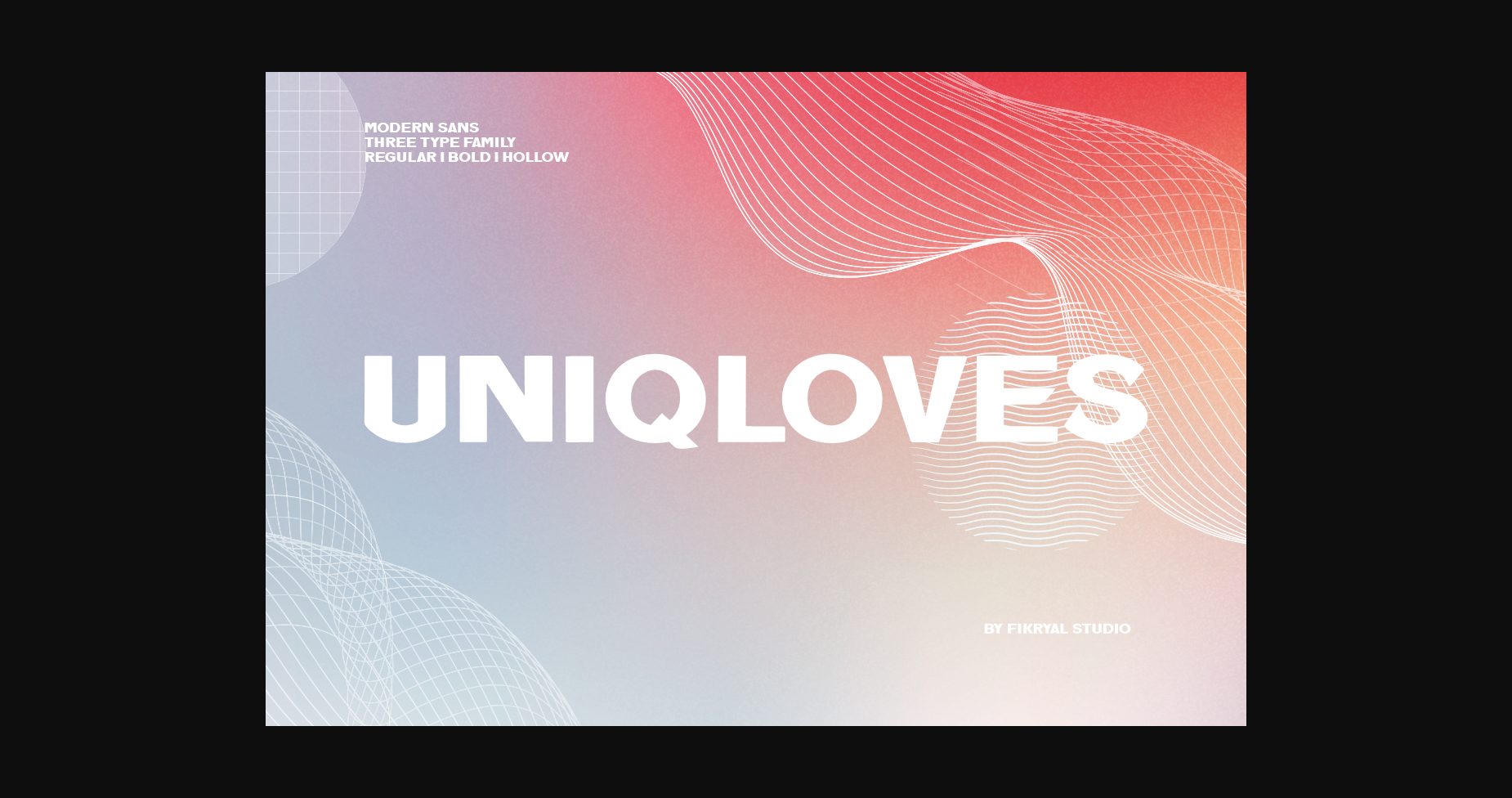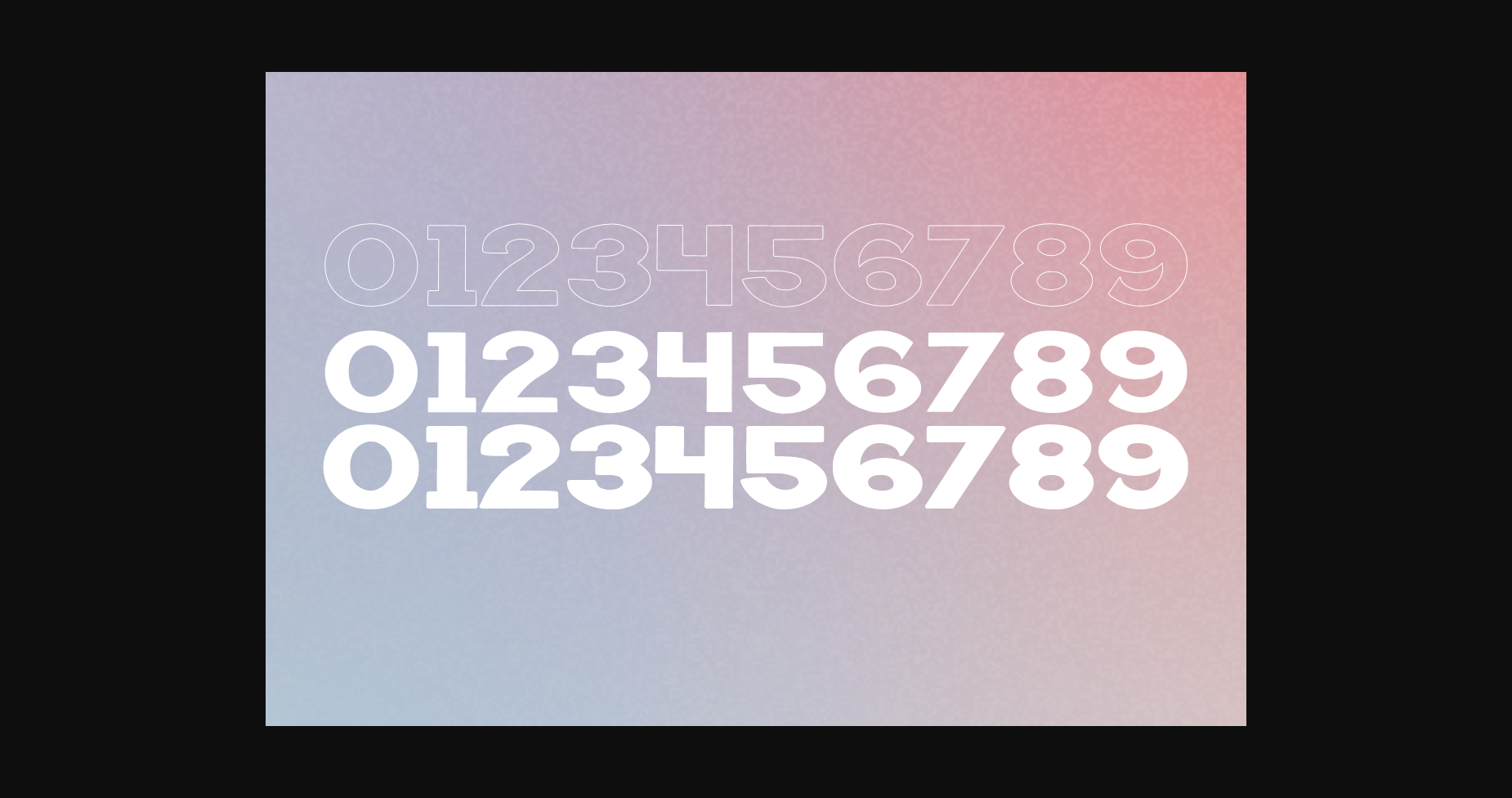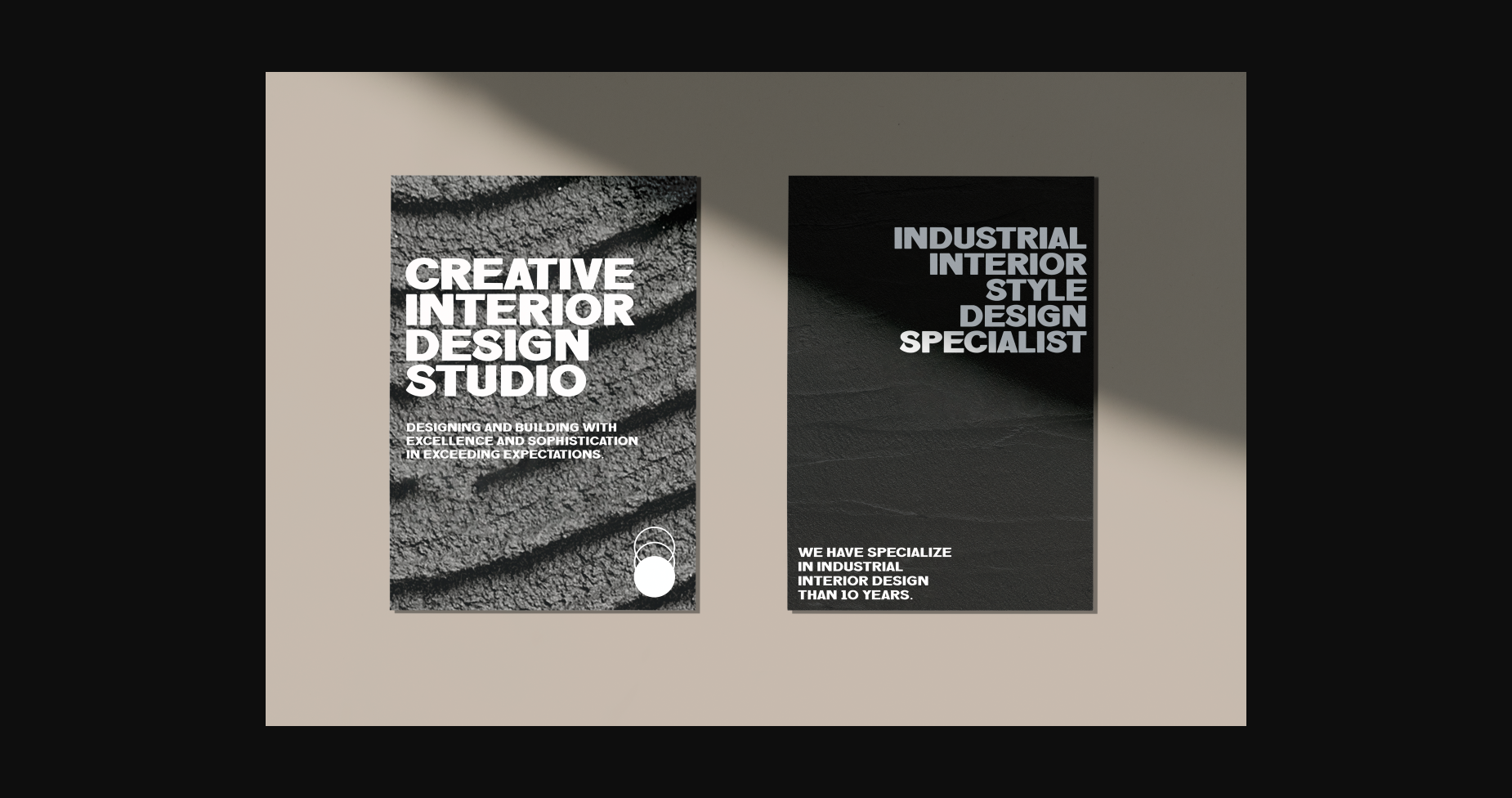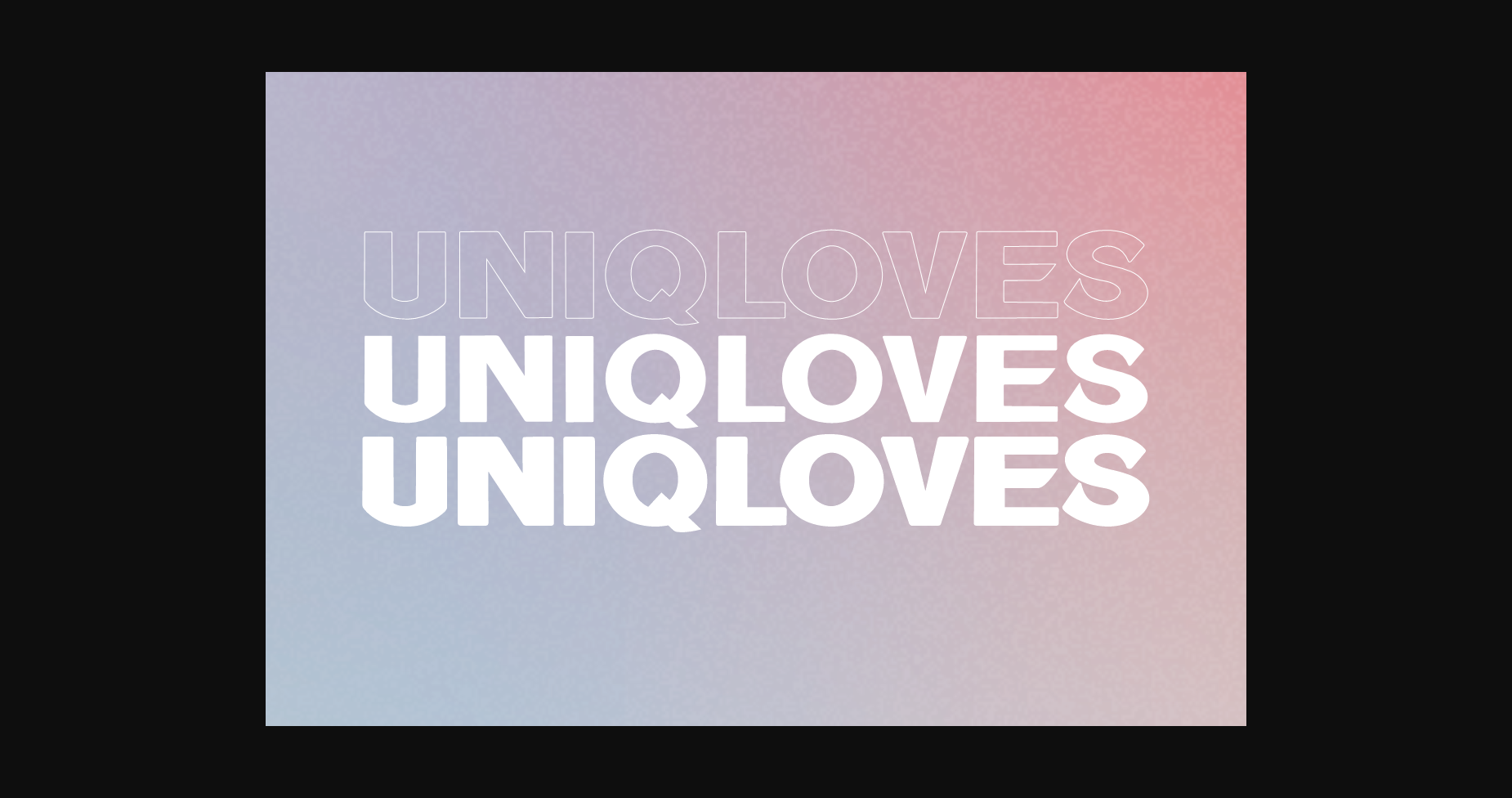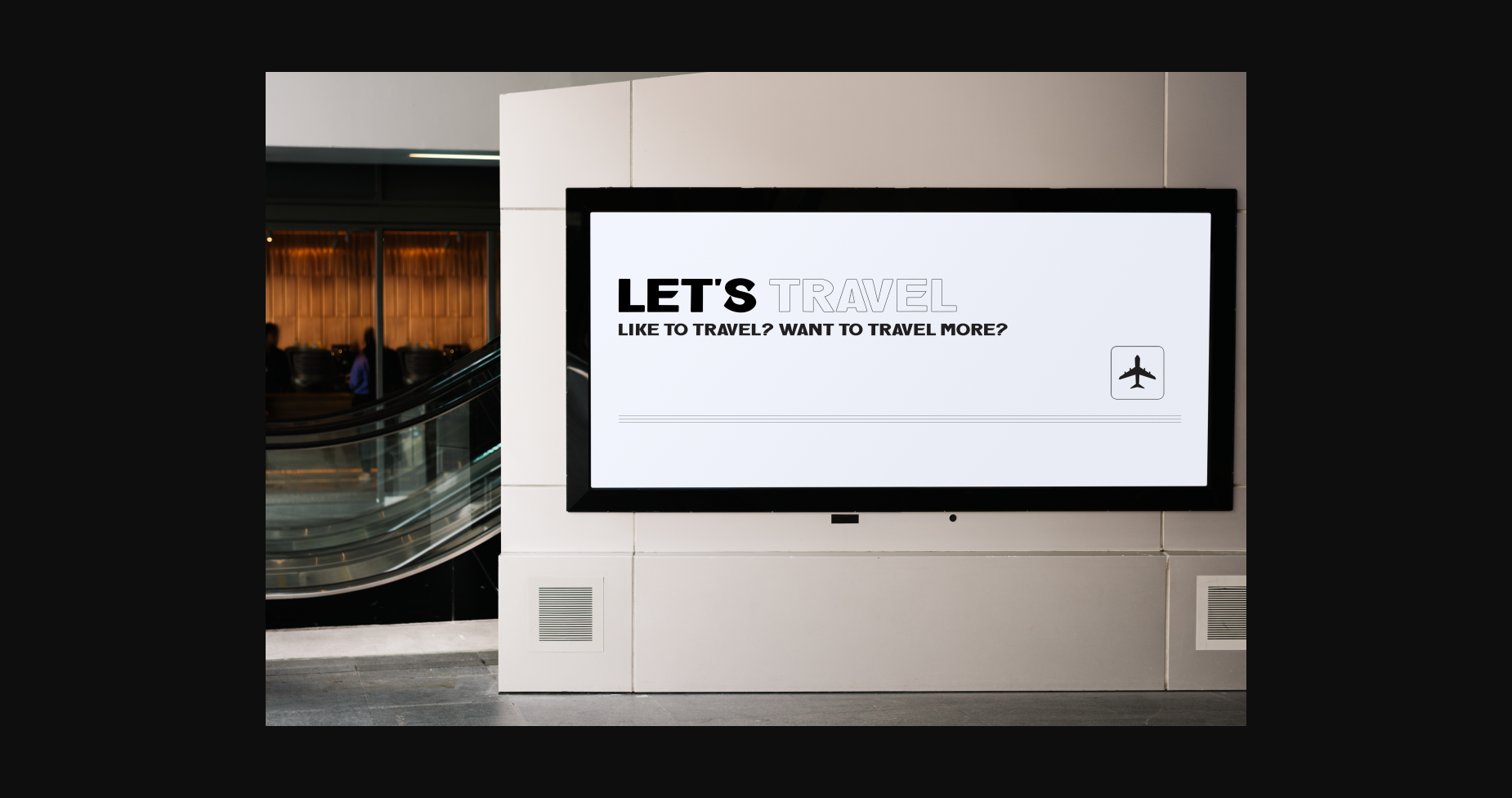
About Uniqloves Font
Uniqloves is a cool and modern sans serif font. Contemporary and fresh, it is perfect for any design you wish to create. Add it to your creative projects and make them outstanding!